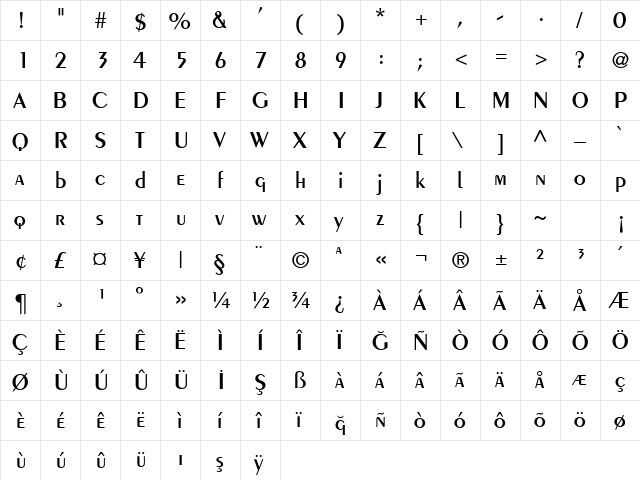
TrSah Penguin Plain
Design Context for TrSah Penguin Typeface
TrSah Penguin is a composed and adaptable typeface that performs quietly and consistently across a wide range of design contexts.